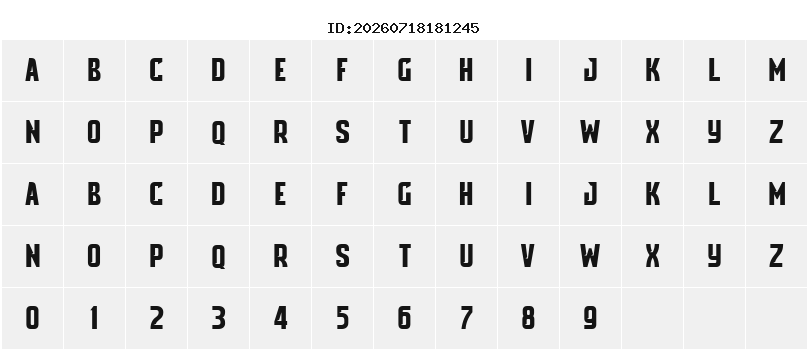
• Font Name: Cubadak
• Full Font Name: Cubadak Regular
• Manufacturer: Khoeroni
Cubadak.ttf is a modern, elegant sans-serif font designed for ultimate readability and visual harmony. Perfect for branding, headlines, web design, and print materials.